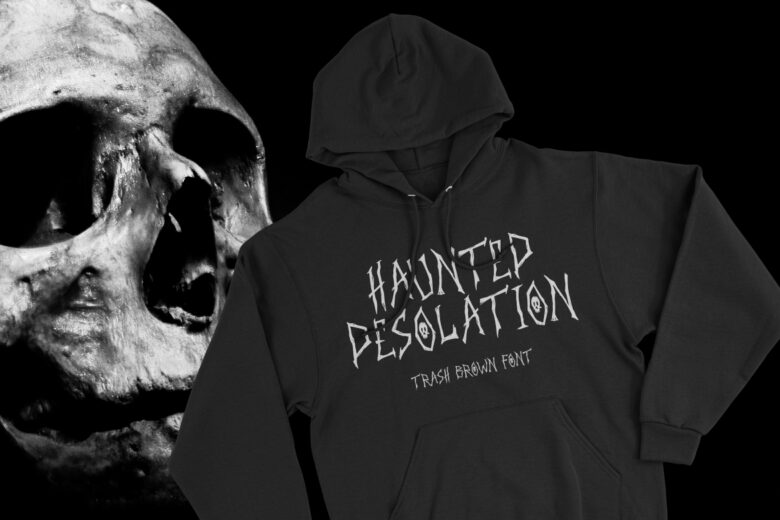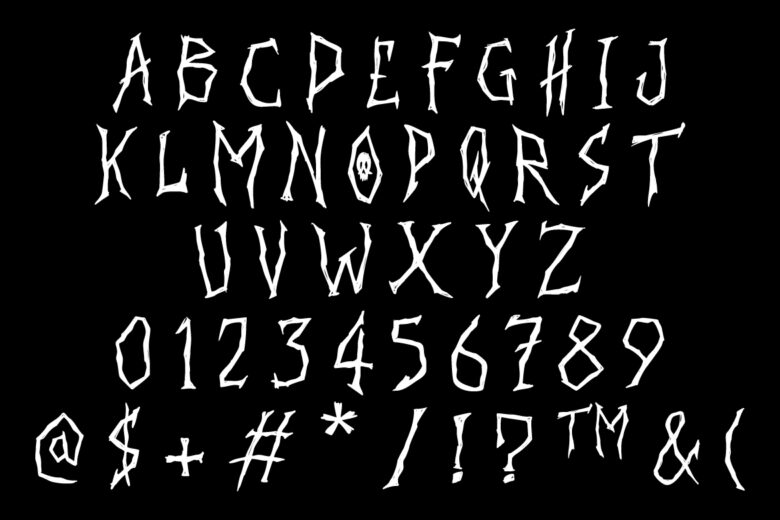
Trash Brown
Introducing ‘Trash Brown’—a metal font that seamlessly blends simplicity with unbridled ferocity. With bold, no-frills characters, it delivers a potent visual punch, perfectly mirroring the intensity of your music. Let ‘Trash Brown’ be the statement piece for your metal project—a sleek, yet relentlessly powerful font that commands attention and embodies the raw energy of your sound.